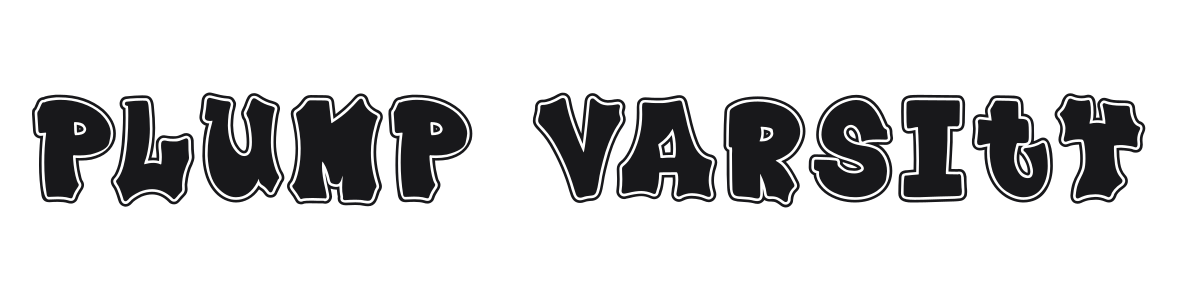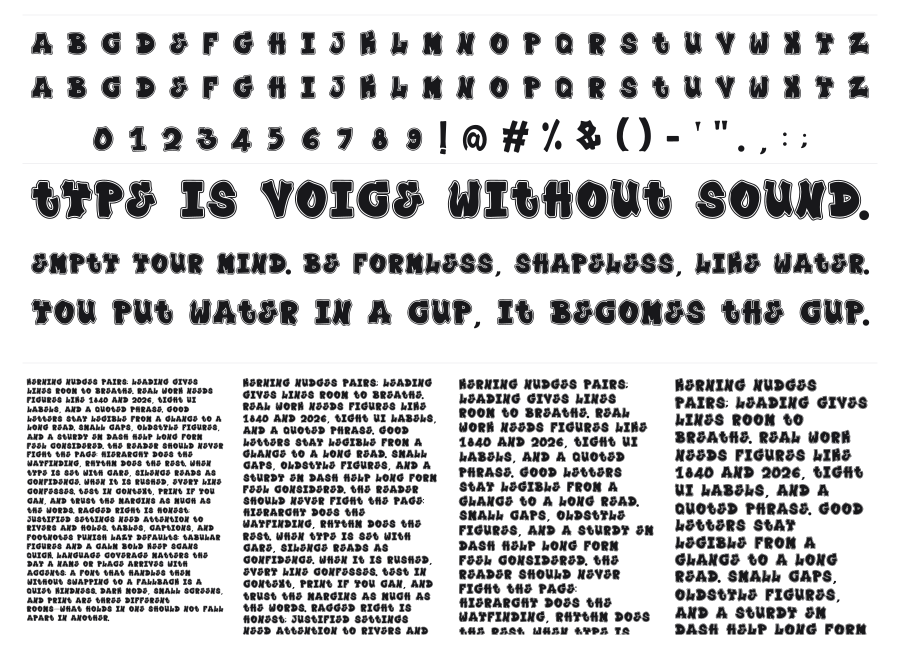
Plump Varsity
Plump Varsity is a chunky collegiate display font by Dm Letter Studio with heavy rounded strokes and a built-in inline outline effect. Rooted in classic American varsity lettering, it carries the nostalgic energy of letterman jackets, team logos, and retro sports branding. The inflated, plump forms give it a modern cartoon edge that sets it apart from strait-laced athletic typefaces.